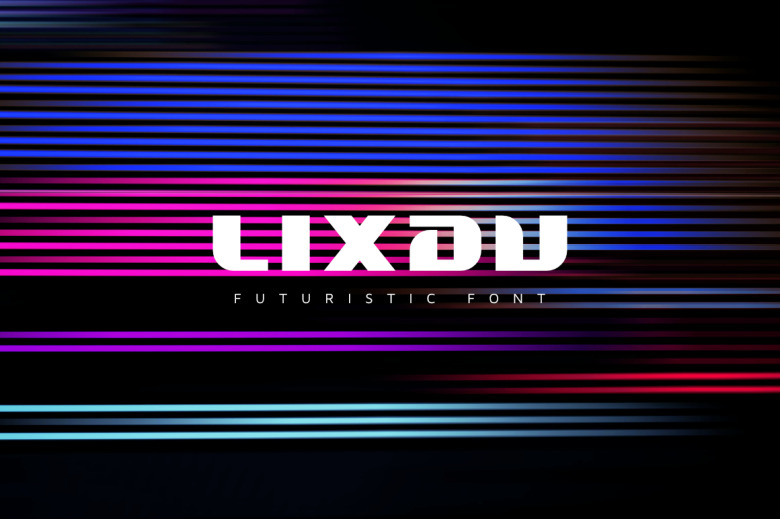
Lixdu Font
Lixdu modern poster font. Utilization is pretty well for t-shirts, sportswear, logos, hoodies, advertisements, titles, clothing, and more. Carbon It is modern and soft and modernist humanist.
Lixdu Display Font